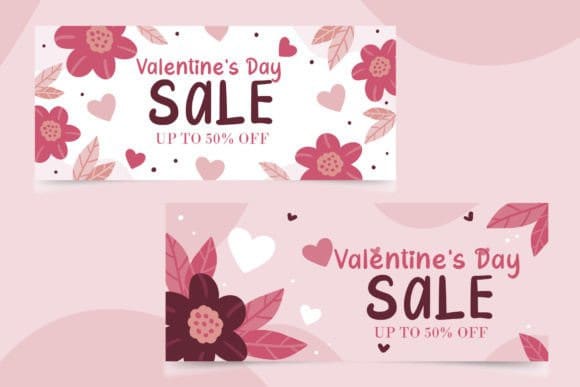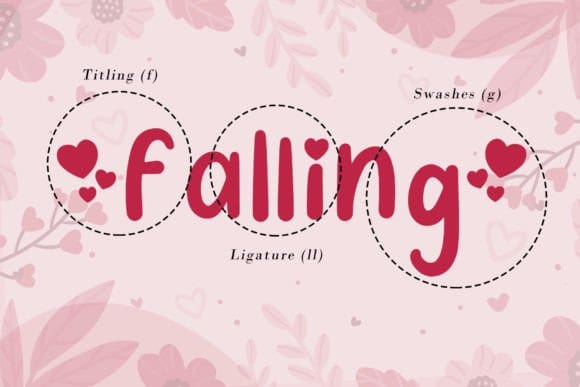
Feilla Display Font
Feilla Display Font is a cute valentine’s handwritten font featuring lovely ornaments. This font is perfect for romantic-themed designs, especially when combined with pink or bright colors. It is PUA encoded, which means you can access all of the glyphs and swashes with ease!